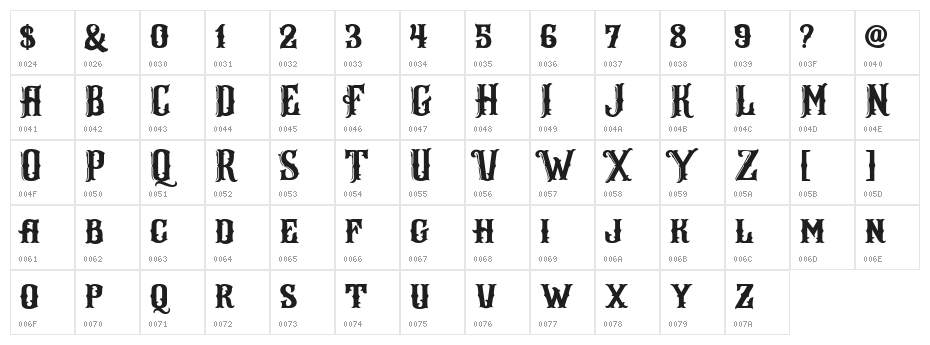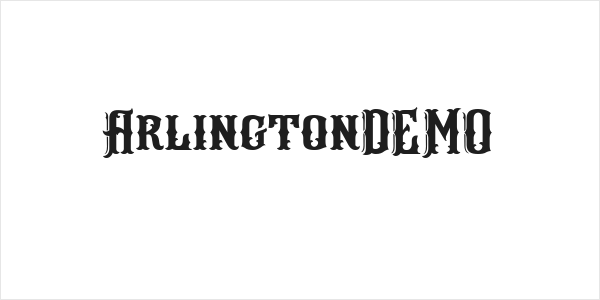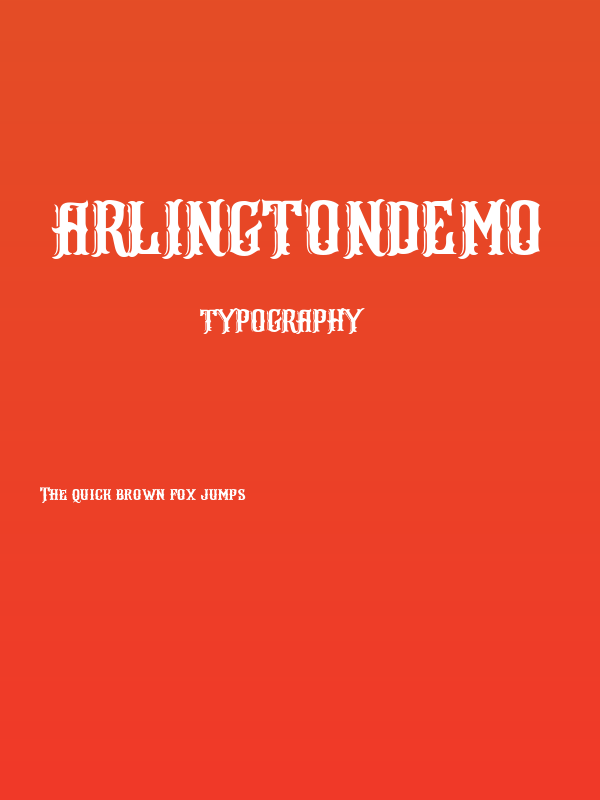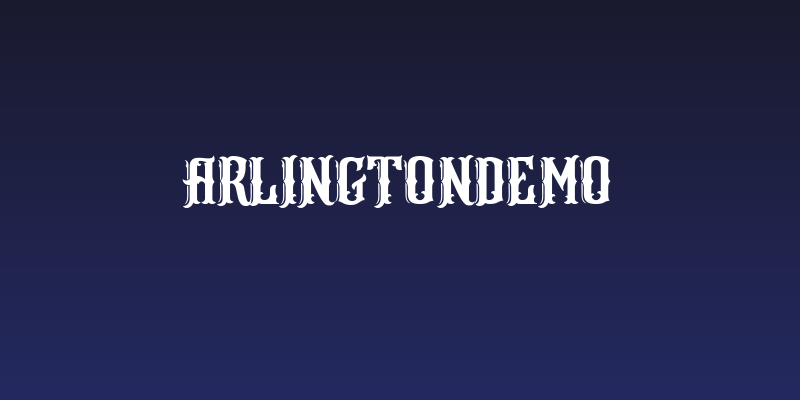
ArlingtonDEMO Font
ArlingtonDEMO Description
This font features a bold, decorative style with intricate detailing reminiscent of vintage Western typography. The uppercase letters are characterized by strong vertical lines and ornate serifs, giving each character a distinct, eye-catching appearance. The numbers and special characters maintain the same decorative flair, ensuring consistency across all glyphs. The font's bold weight and high contrast between thick and thin strokes make it ideal for impactful designs. Its unique style is perfect for projects that require a touch of nostalgia or a dramatic visual impact.
Overall StyleVintage
Proposed ProjectsIdeal for posters, logos, branding, and any design needing a vintage or Western theme.